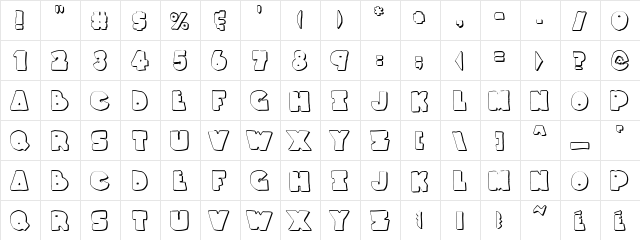
Thunder Thighs Shadow Regular
Design Context for Thunder Thighs Shadow Typeface
Thunder Thighs Shadow is built around its visual character rather than neutral utility — its distinctive forms are designed to make an impression at display sizes.
Font Pairing: Pair with a clean neutral sans-serif for body copy to let Thunder Thighs Shadow's character lead without overwhelming the composition.
Pro Tip: Treat Thunder Thighs Shadow as the centrepiece of your typographic hierarchy. One strong heading set in a decorative face can carry an entire layout.